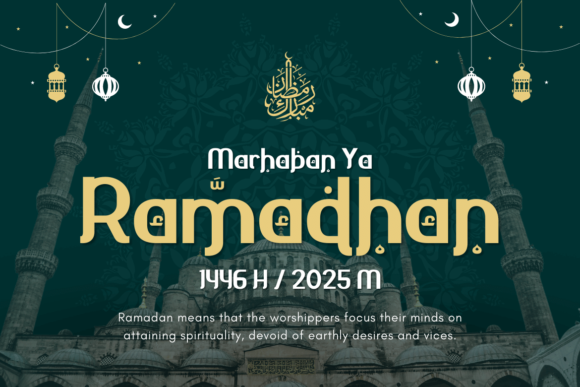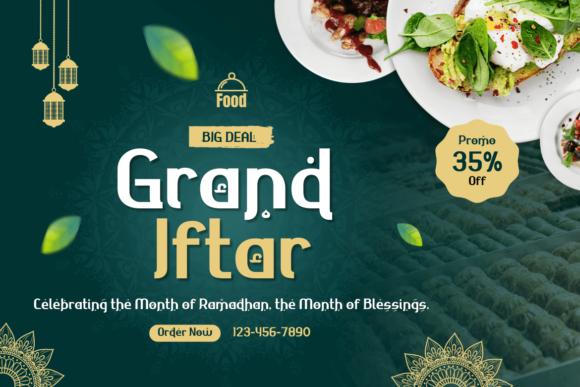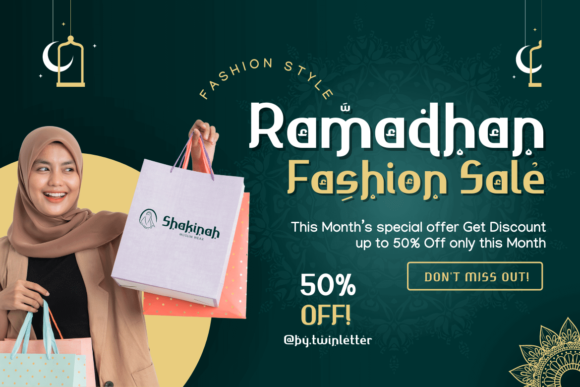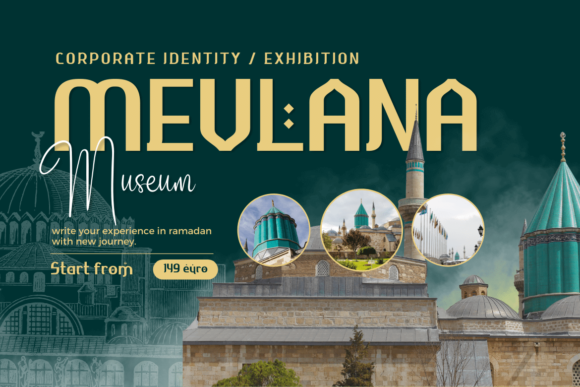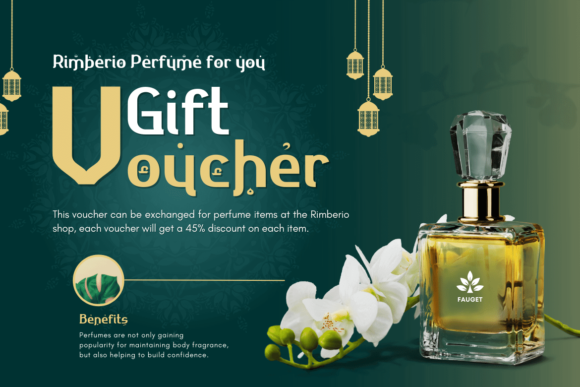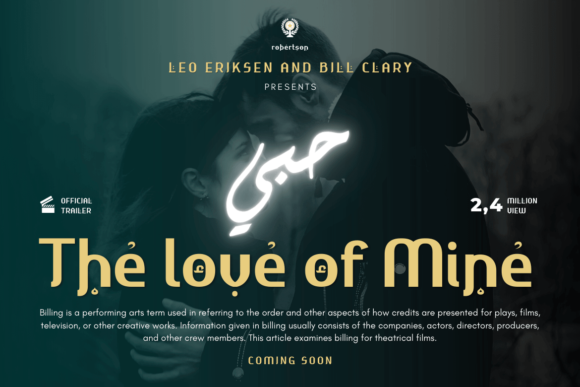
Ahmisya Font: Elevate Your Designs with a Genuine Middle Eastern Flair
Are you looking to add an exotic touch to your designs? Do you want to create a lasting impression on your audience? Look no further than the Ahmisya font, a stunning Arabic font that will transport your designs to the vibrant streets of the Middle East. With its elegant and authentic aesthetic, the Ahmisya font is the perfect choice for designers and crafters seeking to infuse their projects with a unique cultural flavor.
The Beauty of Arabic Typography
Arabic typography is renowned for its intricate and beautiful calligraphy, which has been a cornerstone of Middle Eastern art and culture for centuries. The Ahmisya font is a modern interpretation of traditional Arabic calligraphy, blending classic elegance with contemporary flair. This font is meticulously crafted to reflect the nuances and complexities of Arabic script, making it an exceptional choice for designers seeking to create authentic and captivating designs.
Why Choose the Ahmisya Font?
The Ahmisya font offers a range of benefits that make it an attractive choice for designers and crafters. Here are just a few reasons why you should consider using this exceptional font:
- Elegant and Sophisticated: The Ahmisya font exudes elegance and sophistication, making it perfect for designs that require a touch of refinement and luxury.
- Authentic Middle Eastern Flair: The Ahmisya font is deeply rooted in Middle Eastern culture, providing an authentic and genuine aesthetic that will transport your designs to the region.
- Highly Versatile: The Ahmisya font is highly versatile and can be used in a wide range of design applications, from branding and advertising to packaging and digital media.
- Easy to Read: Despite its intricate and ornate design, the Ahmisya font is surprisingly easy to read, making it perfect for body text and longer-form content.
How to Use the Ahmisya Font in Your Designs
Using the Ahmisya font in your designs is easy and straightforward. Here are a few tips to get you started:
- Pair it with Neutral Backgrounds: The Ahmisya font works best when paired with neutral backgrounds that allow the font to take center stage.
- Experiment with Colors: The Ahmisya font looks stunning in a range of colors, from rich jewel tones to bold and bright hues.
- Use it for Headings and Titles: The Ahmisya font is perfect for headings and titles, where its elegant and sophisticated aesthetic can really shine.
Tips and Tricks for Working with the Ahmisya Font
Here are a few additional tips and tricks to help you get the most out of the Ahmisya font:
- Pay Attention to Kerning: As with any font, kerning is essential when working with the Ahmisya font. Make sure to adjust the kerning to ensure that the text flows smoothly and elegantly.
- Use it in Combination with Other Fonts: The Ahmisya font works beautifully in combination with other fonts, particularly sans-serif fonts that provide a clean and modern contrast.
- Be Mindful of Legibility: While the Ahmisya font is easy to read, it’s still essential to be mindful of legibility, particularly when using the font in smaller sizes.
The Ahmisya font is an exceptional choice for designers and crafters seeking to add an elegant Arabic touch to their designs. With its authentic and sophisticated aesthetic, this font is sure to captivate audiences and leave a lasting impression. Whether you’re working on a branding project, creating packaging, or designing digital media, the Ahmisya font is a versatile and beautiful choice that will elevate your designs to new heights. So why wait? Download the Ahmisya font today and discover the beauty of Arabic typography for yourself.